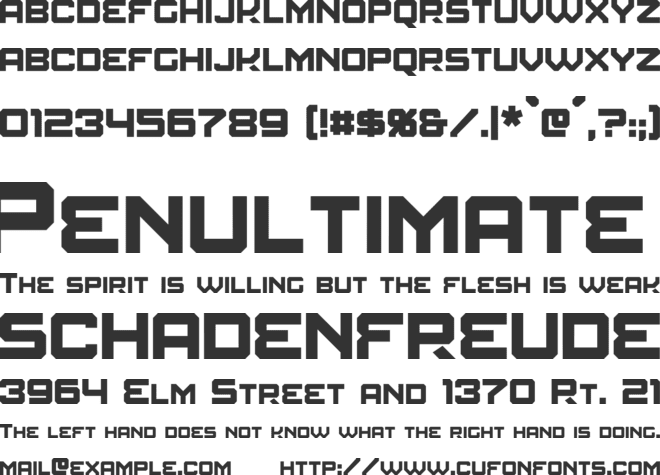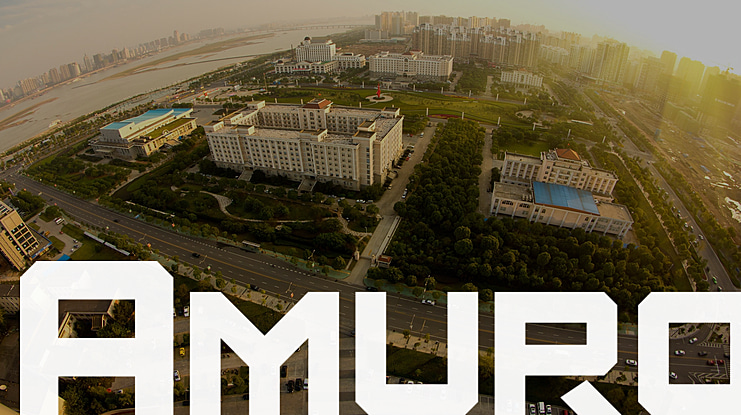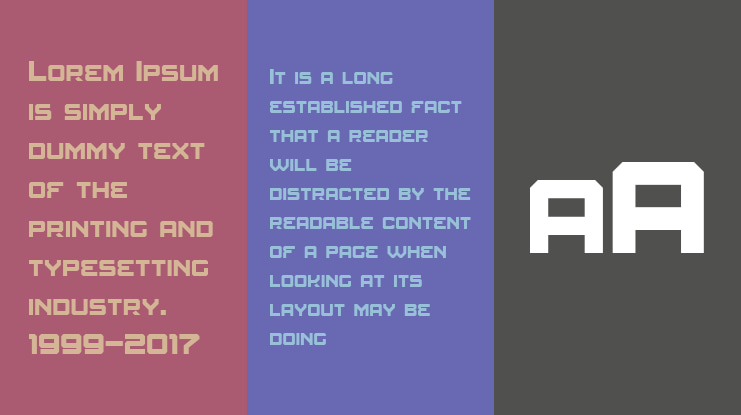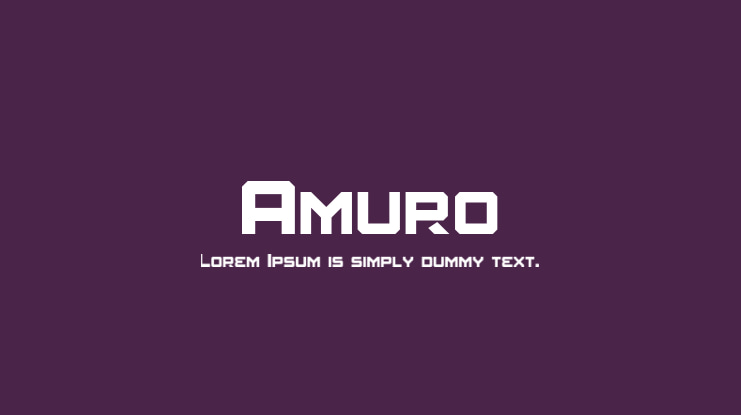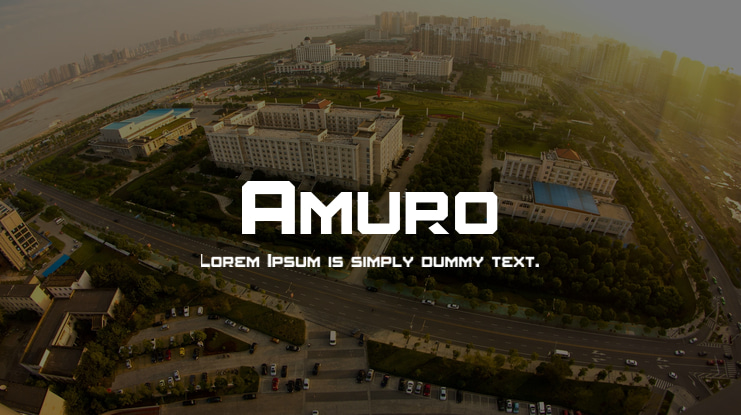
Amuro Font Family
Neale Davidson
Amuro is an angular, beveled face based heavily on the heading logos from Bandai’s Dynasty Warriors: Gundam video game. Includes full alphabet, extended punctuation, euro. Includes bold, italic, bold-italic, and condensed versions of the above.